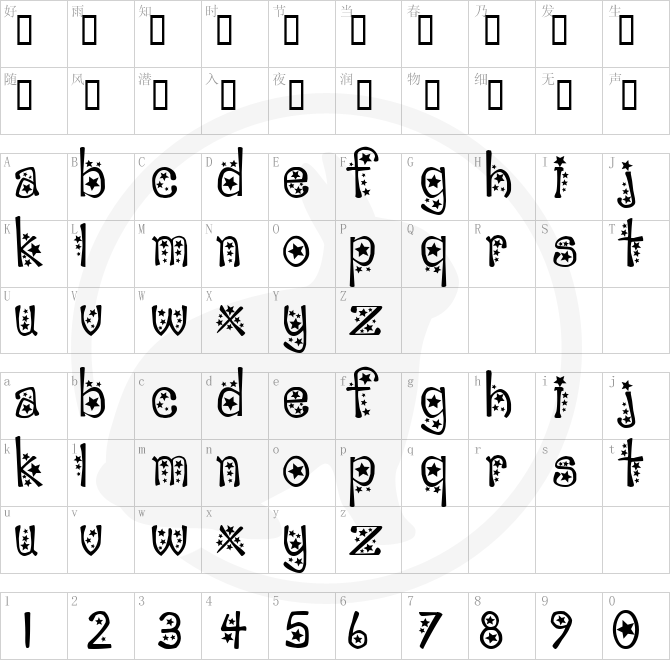
- Font Name:sabrina star
sabrina-star.ttf is a very beautiful artistic font, sabrina-star.ttf is widely used in the design and printing of various books and pictures,sabrina-star.ttf has a strong visual impact,sabrina-star.ttf is a commonly used font in newspapers, magazines and books, and is used in posters, e-commerce Poster design, store design, logo design, font design and other fields.sabrina-star.